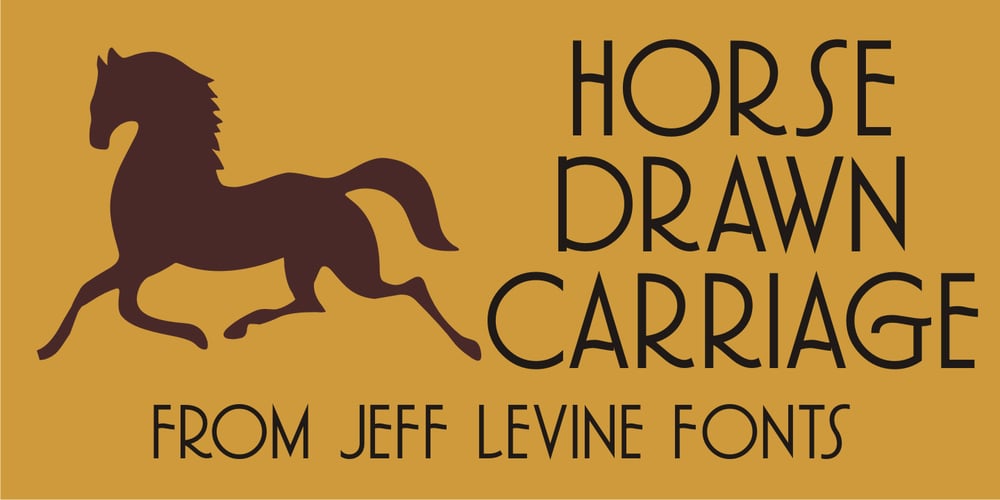
Horse Drawn Carriage JNL Font Family was designed by Jeff Levine and published by Jeff Levine. Horse Drawn Carriage JNL contains 1 styles and family package options. Picture if you will, a balmy autumn evening in Manhattan during the 1930s and a well-dressed couple out on the town. They hail one of the hansom cabs located near Central Park and climb in for an old-fashioned romantic ride around the green. Such are the type of images the stylized Art Deco hand-lettering comprising Horse Drawn Carriage JNL evokes. The inspiration for this font was the title card for a 1935 Bette Davis feature entitled “The Girl from 10th Avenue”.